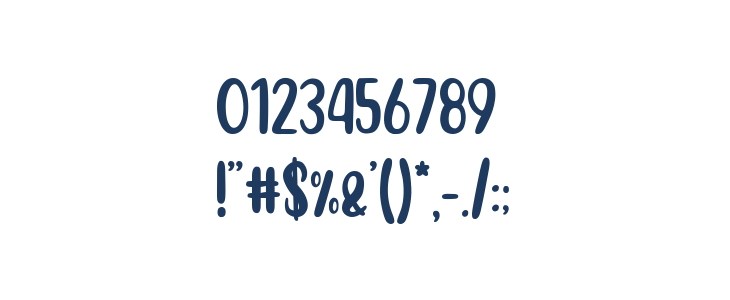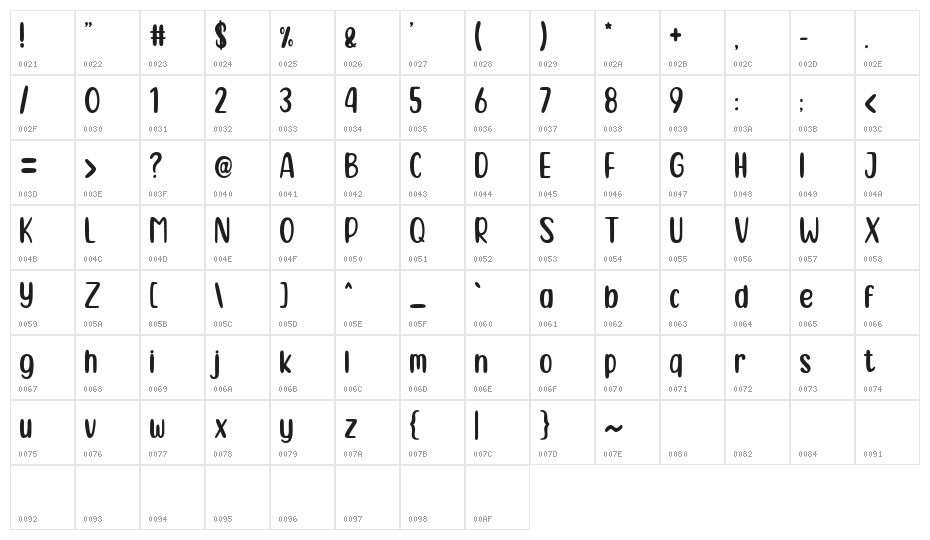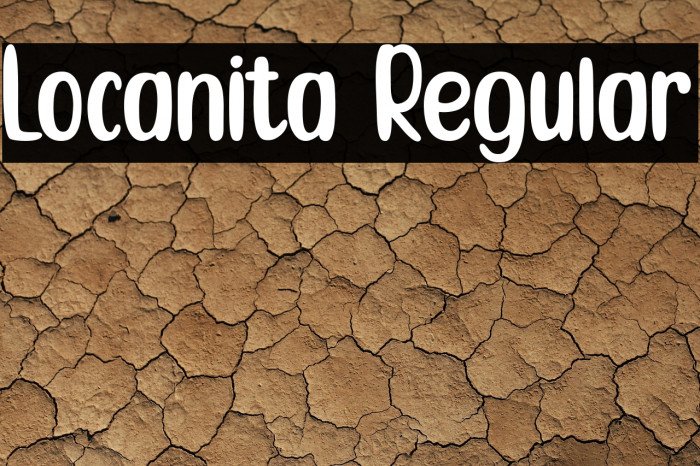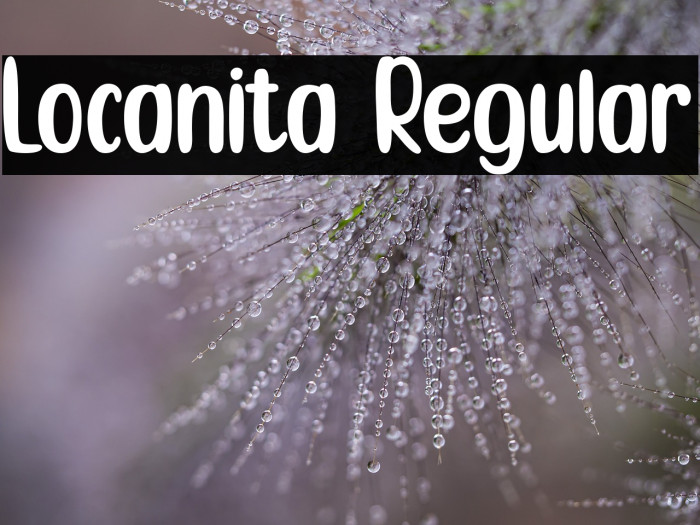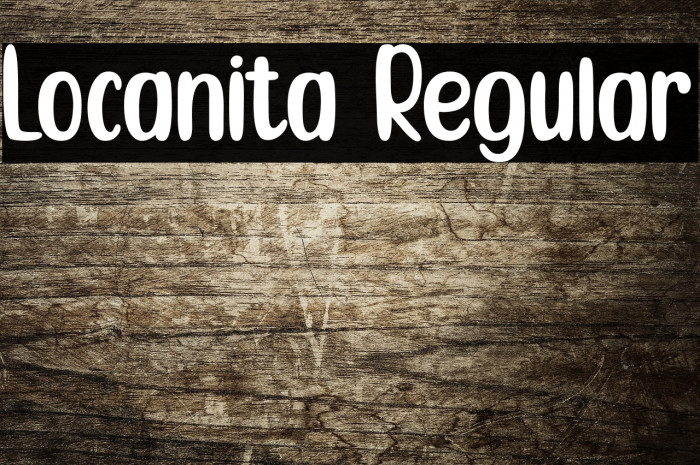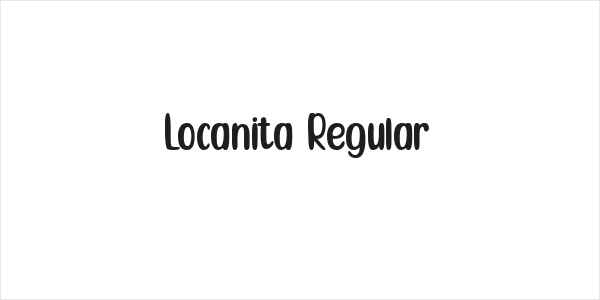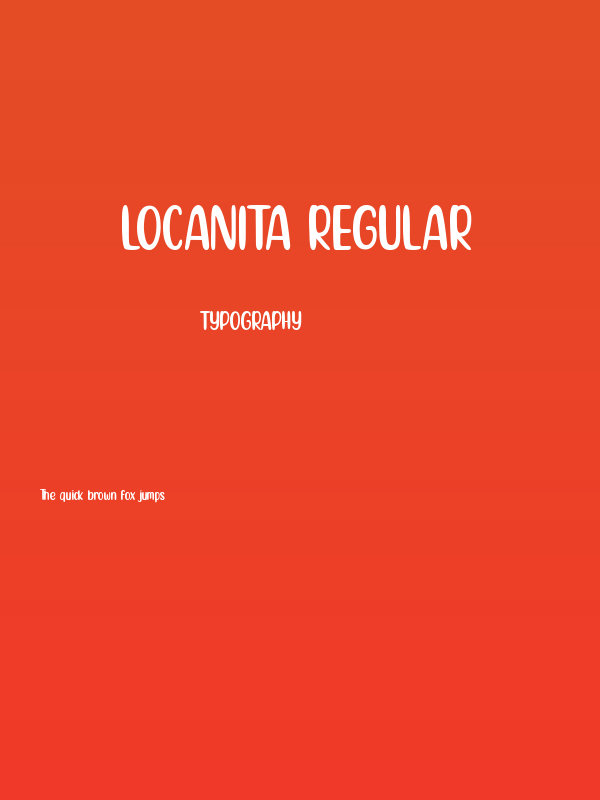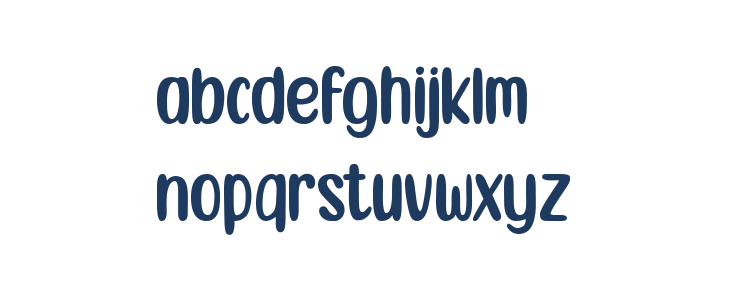
Locanita Regular Font
Locanita Regular Description
This playful and rounded font features a friendly and approachable style, characterized by its smooth curves and consistent stroke width. The letters are slightly elongated, giving them a unique and whimsical appearance. The uppercase and lowercase letters maintain a uniform height, while the numerals and special characters blend seamlessly with the overall design. The font's simplicity and readability make it suitable for a variety of applications, from children's books to casual branding projects. Its distinct personality is conveyed through its bold and confident strokes, making it an excellent choice for projects that require a touch of fun and creativity.
| Proposed Projects | Ideal for children's books, casual branding, playful invitations, and creative posters. |